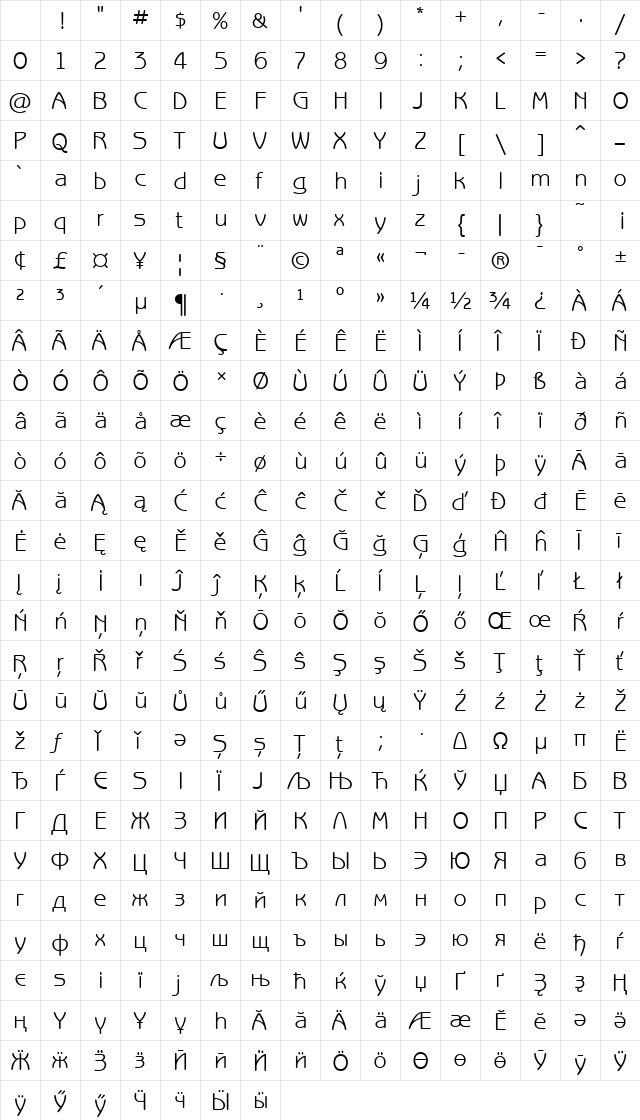
Complete BenguiatGothicBookITCW05-Rg Regular glyph index. Displaying only characters natively supported by BenguiatGothicBookITCW05-Rg Regular font.
BenguiatGothicBookITCW05-Rg takes a clean, functional approach - its unadorned letterforms prioritise legibility and work reliably across screen and print environments.
Font Pairing: Works well alongside a characterful serif or display font that can carry the expressive load while BenguiatGothicBookITCW05-Rg handles the functional copy.
Pro Tip: Use BenguiatGothicBookITCW05-Rg for UI labels, navigation, and short-form body copy where clean legibility is the priority.